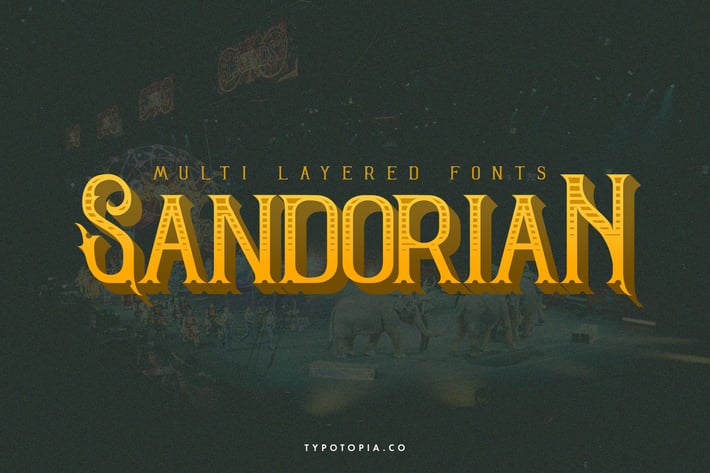
Sandorian Multi Layered Fonts
Introducing Sandorian - Multi Layered Font with Vintage Style. This Font has 6 Layer that can be Combined become an Unique Font, This perfect for the purposes of designing templates, brochures, videos, advertising branding, logos and more.